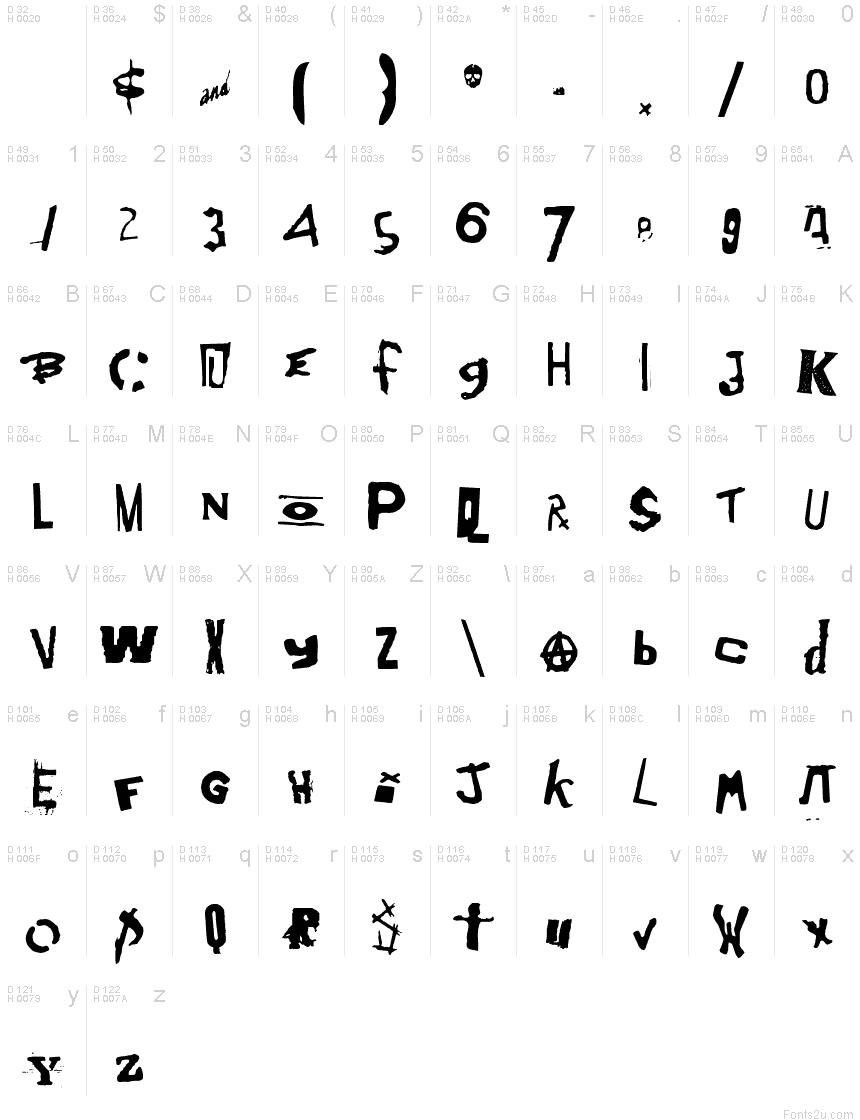
DIY Two
DIY Two font by Michael Wallner of theTYPEfetish is a free distorted display typeface that looks like it’s been yanked straight from a photocopied zine or a scraped-off gig poster. The chunky black forms and ragged white cutouts feel raw and physical, like ink smeared and re-scanned until it started to melt. Letters wobble and warp just enough to feel unpredictable, giving layouts a rough-edged, handmade energy that’s hard to fake.
Using DIY Two, this free font, you can push attitude in punk flyers, band logos, experimental album covers, zines, skate or streetwear graphics, and offbeat event posters. It works best loud and big, where the irregular silhouettes can really shout. Try pairing DIY Two with a clean, condensed sans serif in small text to keep your message readable while the headline makes all the noise.